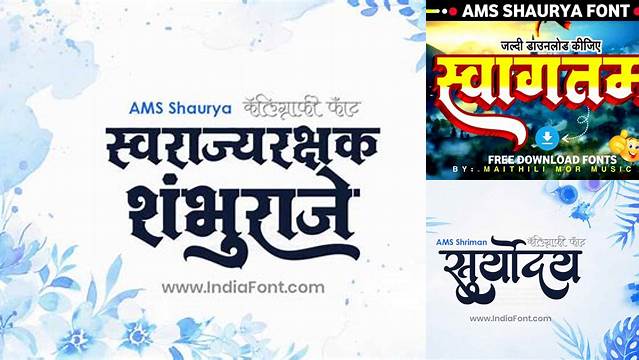
AMS Shaurya Font: Free Download For Creative Designs
Hey guys! Are you looking to spice up your designs with a fresh, creative font? Look no further! The AMS Shaurya font is here to save the day. This font is perfect for adding a unique touch to your projects, whether you're working on branding, posters, or even just fun personal projects. In this article, we'll dive deep into everything you need to know about AMS Shaurya, from its features and benefits to how you can snag it for free. So, buckle up and let's get started!
1. What is AMS Shaurya Font?
So, what exactly is the AMS Shaurya font? Well, it's a beautifully crafted typeface designed to bring a blend of elegance and modernity to your designs. It's the kind of font that catches the eye without being too flashy, making it ideal for a wide range of applications. The AMS Shaurya font family typically includes various weights and styles, giving you plenty of options to play with. Imagine using it for a sleek logo, a captivating headline, or even body text that's easy on the eyes. The versatility of this font is one of its biggest selling points. Plus, the clean lines and balanced letterforms ensure readability, which is crucial for any design project. When you're aiming for a polished and professional look, AMS Shaurya definitely delivers. This font is not just about aesthetics; it's about making your message clear and impactful, which is what great typography is all about, right? Using AMS Shaurya can instantly elevate your work, giving it that extra edge that sets it apart from the crowd. Whether you're a seasoned designer or just starting out, this font is a fantastic addition to your toolkit.
2. Key Features of AMS Shaurya Font
Okay, so you know what AMS Shaurya is, but what makes it so special? Let's talk features, guys! One of the standout features of the AMS Shaurya font is its versatility. It’s not just a one-trick pony; this font can adapt to various design styles, from minimalist to more elaborate projects. It often comes in multiple weights – think light, regular, bold – which gives you the flexibility to create visual hierarchy in your designs. Need a subtle, elegant look? Go for the light weight. Want to make a statement? Bold is your best friend. Another key feature is its readability. The letterforms are designed with clarity in mind, ensuring that your text remains legible even at smaller sizes. This is super important for body text and longer paragraphs. And let's not forget the aesthetic appeal! AMS Shaurya has a modern, clean look that can instantly elevate your designs. It's the kind of font that looks both professional and stylish, a rare combination. Many designers also appreciate the attention to detail in the kerning and spacing, which ensures a harmonious and balanced appearance. Plus, some variations of the AMS Shaurya font include special characters and glyphs, adding even more creative possibilities. Whether you're designing a website, a poster, or a business card, the features of AMS Shaurya make it a solid choice. It’s all about giving you the tools to create something awesome!
3. Benefits of Using AMS Shaurya Font
Alright, let’s talk benefits! Why should you choose the AMS Shaurya font over the hundreds of other options out there? Well, for starters, it’s a fantastic way to add a touch of sophistication to your designs. This font has a certain elegance that can make your projects look more polished and professional. Think about it: a well-chosen font can be the difference between a design that looks amateur and one that looks like it came straight from a top-tier studio. Another major benefit is its versatility. As we mentioned earlier, AMS Shaurya works well in a variety of contexts. You can use it for headlines, body text, logos – you name it! This flexibility means you can stick with one font family for an entire project, creating a cohesive and professional look. Plus, let’s not forget about readability. A beautiful font is useless if people can’t read it, right? AMS Shaurya excels in this area, with clear, well-defined letterforms that are easy on the eyes. This is especially important for longer texts and websites. And of course, the fact that you can often find AMS Shaurya for free is a huge bonus! Who doesn’t love a high-quality font that doesn’t break the bank? By using AMS Shaurya, you’re not just choosing a font; you’re choosing a way to enhance your designs and communicate your message more effectively. It’s a win-win!
6. Using AMS Shaurya Font in Graphic Design
So, you've got the AMS Shaurya font downloaded and installed – now the fun begins! Let's talk about how you can use it in your graphic design projects. This font is incredibly versatile, so there are tons of ways to incorporate it into your work. One of the most common uses is for branding. AMS Shaurya can be a fantastic choice for logos, business cards, and other marketing materials. Its clean, modern look can help your brand project a professional and trustworthy image. For headlines and titles, AMS Shaurya can really shine. Its elegant letterforms make a statement without being too overpowering. Try using a bolder weight for maximum impact. When it comes to body text, readability is key, and AMS Shaurya delivers. Its well-defined characters make it easy on the eyes, even for longer paragraphs. Plus, using AMS Shaurya across your design creates a cohesive and polished look. Don't be afraid to experiment with different weights and styles to create visual hierarchy and add interest. And remember, typography is all about conveying a message. Think about the tone and style of your project and choose a weight and style of AMS Shaurya that fits. Whether you're designing a website, a poster, or a social media graphic, AMS Shaurya can help you create a visually appealing and effective design. It's all about using it in a way that complements your overall aesthetic and communicates your message clearly.
7. AMS Shaurya Font for Logo Design
When it comes to logo design, choosing the right font is crucial. A logo is the face of a brand, and the typography plays a huge role in conveying its personality and values. The AMS Shaurya font can be an excellent choice for logos, thanks to its clean, modern, and versatile aesthetic. Its elegant letterforms can help your logo stand out and make a lasting impression. Think about it: a well-designed logo needs to be memorable, legible, and representative of the brand it represents. Using AMS Shaurya in your logo can give it a sophisticated and professional feel. It's the kind of font that works well for a wide range of industries, from tech startups to creative agencies. One of the great things about AMS Shaurya is that it comes in multiple weights, which gives you the flexibility to create different looks and feels. A bold weight can convey confidence and strength, while a lighter weight can project elegance and simplicity. Consider the overall style and message you want to communicate with your logo. Is your brand modern and minimalist? Or more classic and traditional? AMS Shaurya can adapt to both, making it a versatile option. And don't forget to think about scalability. Your logo needs to look good at both large and small sizes, so choose a weight and style of AMS Shaurya that remains legible even when scaled down. With a little creativity, AMS Shaurya can help you create a logo that truly represents your brand.
8. Using AMS Shaurya Font in Web Design
Web design is all about creating a user-friendly and visually appealing experience, and typography is a key element in achieving that goal. The AMS Shaurya font can be a fantastic addition to your web design toolkit, offering a clean and modern look that's both stylish and functional. One of the most important considerations for web typography is readability. Users need to be able to easily read the text on your website, so choosing a legible font is crucial. AMS Shaurya excels in this area, with well-defined characters that are easy on the eyes. Using AMS Shaurya for body text can help create a pleasant reading experience for your visitors. In addition to readability, visual hierarchy is also important in web design. You want to guide users through your content and make it easy for them to find the information they're looking for. Using different weights and styles of AMS Shaurya can help you create visual hierarchy and highlight important elements on your page. For example, you might use a bold weight for headings and a regular weight for body text. Consider how the font works with your overall design aesthetic. Does it complement your color scheme and imagery? Does it convey the right tone and message for your brand? AMS Shaurya's versatility makes it a great choice for a wide range of web design styles, from minimalist to more elaborate designs. And don't forget to optimize your typography for different devices. Your font should look good on desktops, tablets, and smartphones. With AMS Shaurya, you can create a website that's both beautiful and functional.
9. AMS Shaurya Font for Print Materials
When it comes to print materials, typography plays a crucial role in how your message is received. The right font can make your brochures, posters, and business cards look professional and polished. The AMS Shaurya font is a fantastic option for print design, thanks to its clean lines and elegant aesthetic. It's the kind of font that looks good in both headlines and body text, making it a versatile choice for a variety of projects. One of the key considerations for print design is readability. Unlike web design, where users can adjust the font size, you have less control over how the text appears in print. That's why it's so important to choose a font that's legible at different sizes. Using AMS Shaurya ensures that your text remains clear and easy to read, even in smaller sizes. Think about the overall tone and style of your print materials. Are you going for a modern and minimalist look? Or something more classic and traditional? AMS Shaurya can adapt to both, making it a versatile choice. For example, you might use a bold weight for headlines to grab attention, and a lighter weight for body text to create a clean and elegant look. Consider the paper stock and printing method you'll be using. Some fonts may look better on certain types of paper, and certain printing methods may affect the appearance of the font. Test different weights and styles of AMS Shaurya to see what works best for your project. With AMS Shaurya, you can create print materials that are both visually appealing and effective in communicating your message.
30. The Future Trends in Typography and AMS Shaurya Font's Relevance
The world of typography is constantly evolving, with new trends emerging all the time. Understanding these trends can help you make informed decisions about font choices and stay ahead of the curve in design. Let's explore some future trends in typography and how the AMS Shaurya font might fit into these trends. Variable fonts are gaining popularity, allowing for greater flexibility and customization. AMS Shaurya, if available as a variable font, could offer designers a wider range of options within a single font file. The use of bold and expressive typography is also on the rise. Designers are using large, impactful fonts to make a statement and grab attention. Using AMS Shaurya in a bold weight could be a great way to incorporate this trend. Typography is becoming more integrated with animation and motion graphics. Fonts are being used in dynamic and interactive ways to create engaging experiences. The trend towards personalized typography is also growing. Designers are creating custom fonts or modifying existing fonts to reflect a specific brand or message. The use of hand-drawn and handwritten fonts is still popular, adding a personal and organic touch to designs. Consider how AMS Shaurya might be paired with these types of fonts. By staying informed about these trends, you can make strategic font choices and create designs that are both current and effective. AMS Shaurya's versatility and timeless appeal make it a relevant choice for many of these trends.